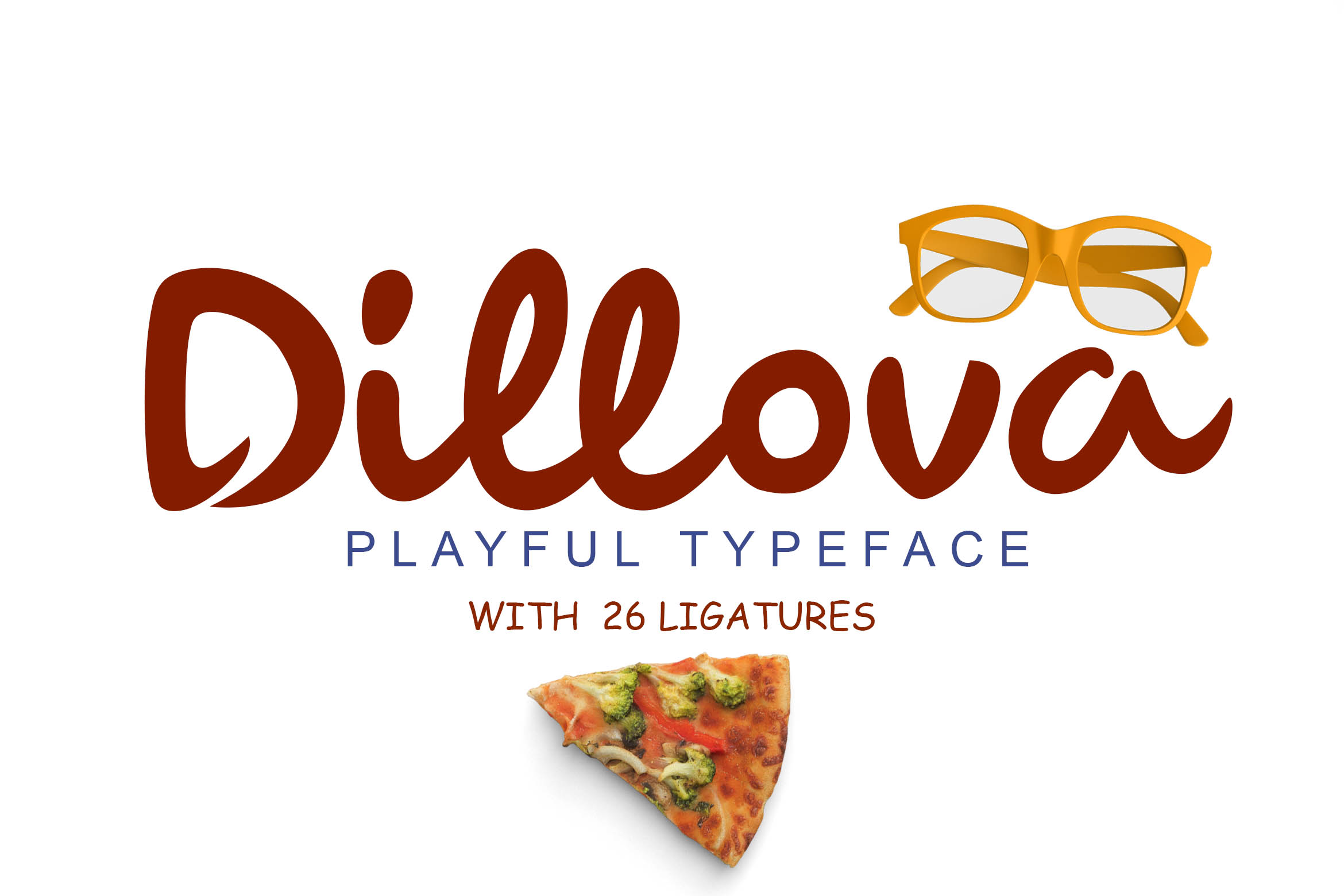
Dillova Font
About Dillova Font
Dillova is a wonderfully playful handwritten font, perfect for a wide range of friendly designs! This font is incredibly legible and adds a lightheartedness to any design.